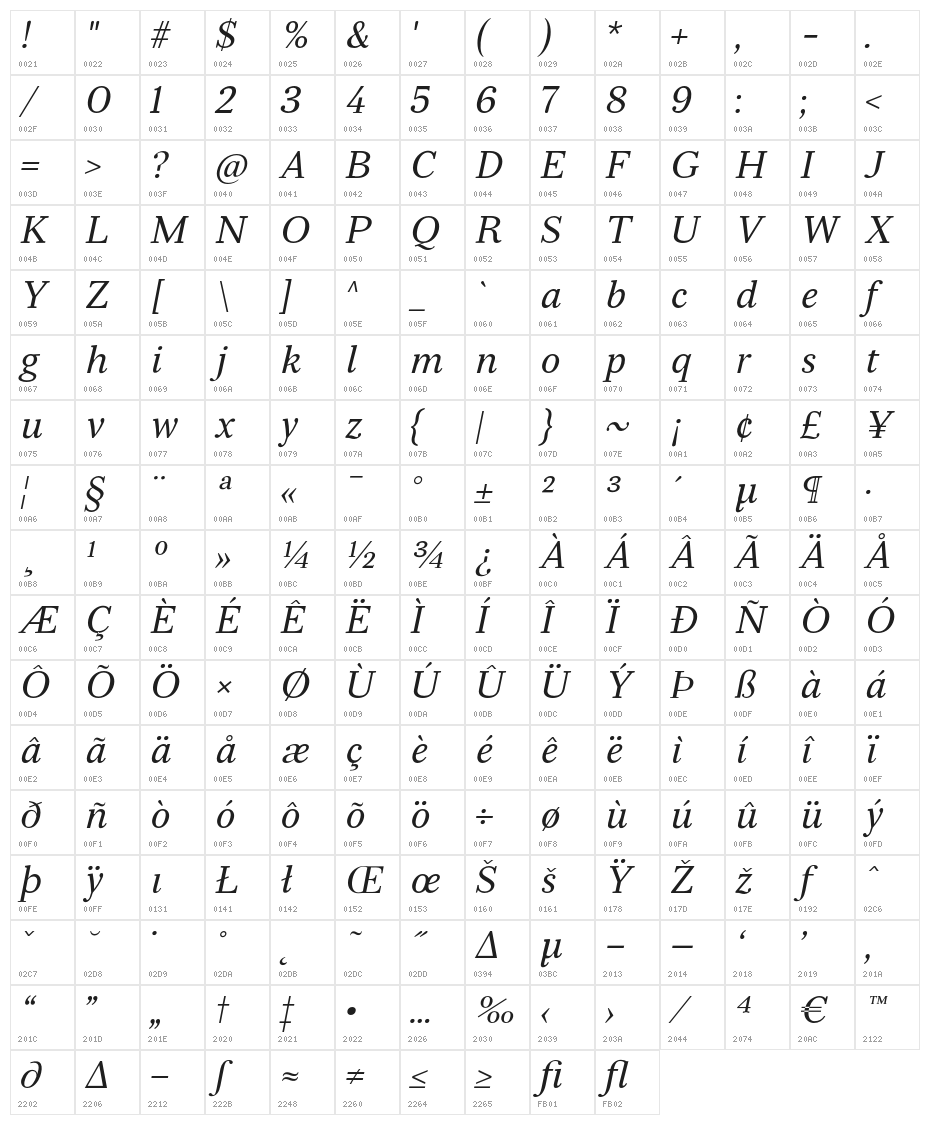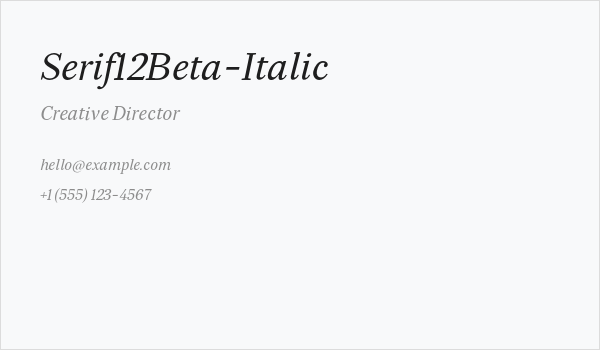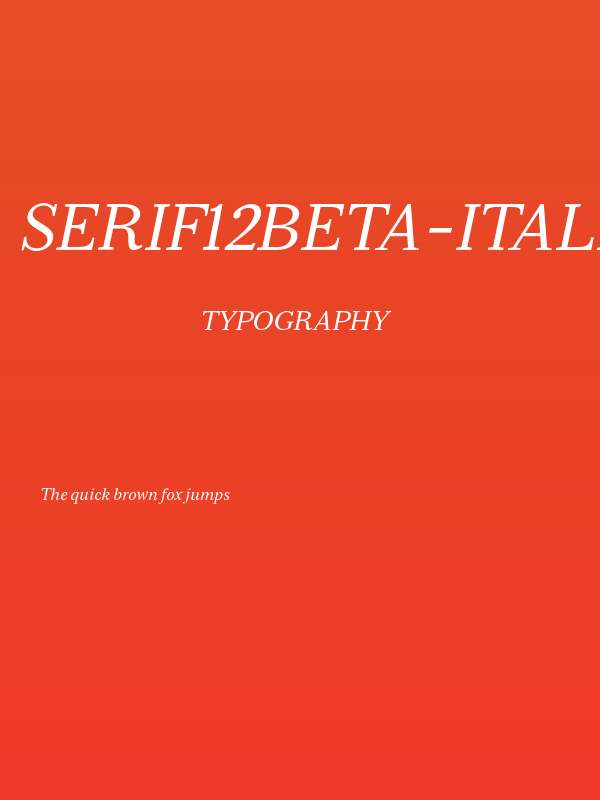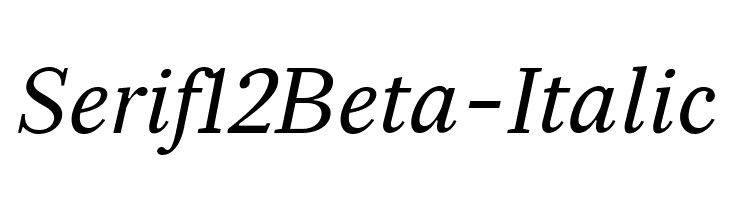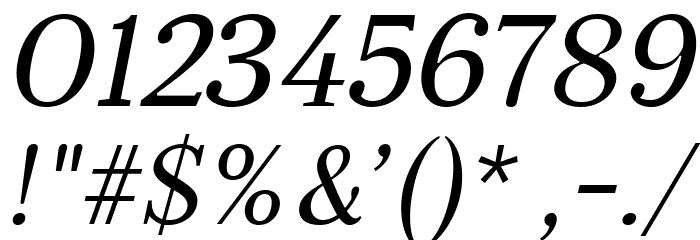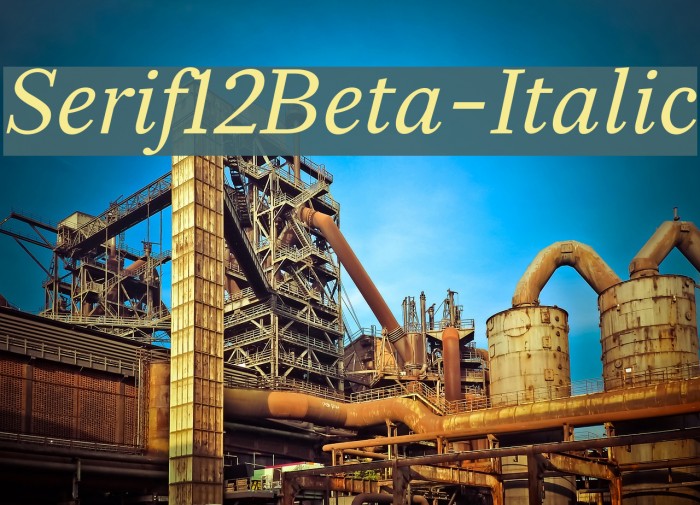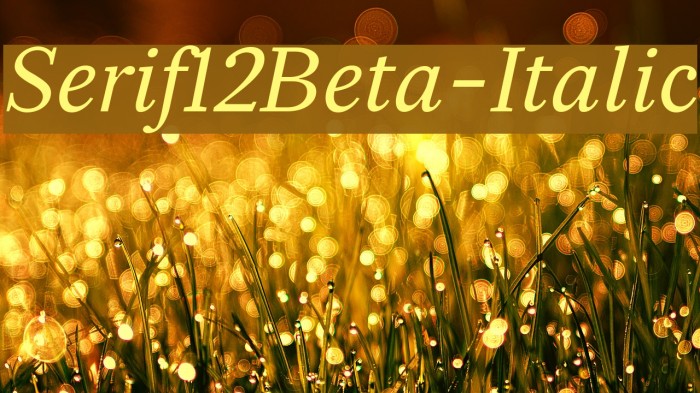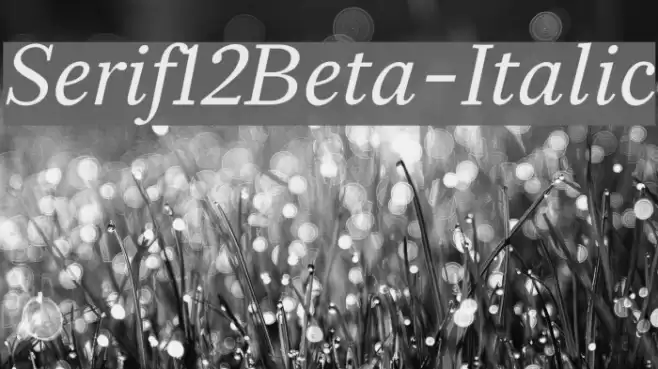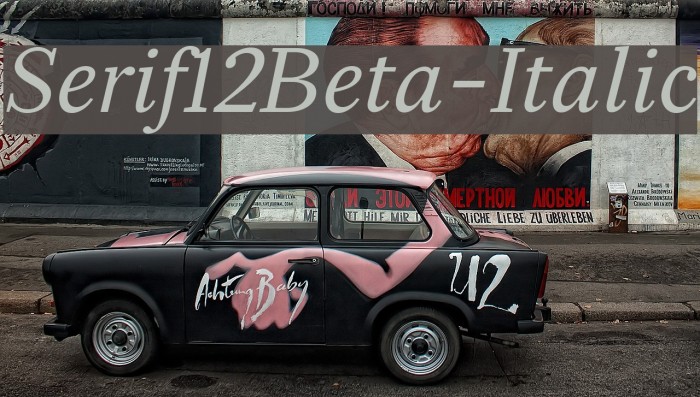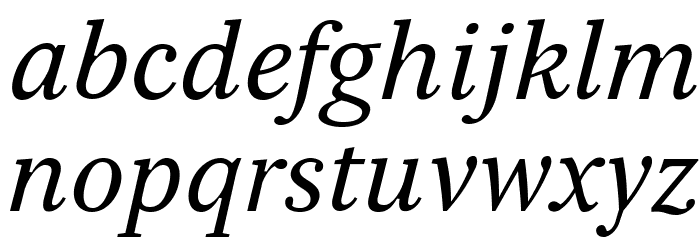
Serif12Beta-Italic Font
Serif12Beta-Italic Description
This elegant serif font features a classic italic style with smooth, flowing lines and a refined appearance. The characters are well-proportioned, with a slight slant that adds a sense of motion and sophistication. The uppercase letters are tall and stately, while the lowercase letters maintain a consistent rhythm, enhancing readability. The numerals are clear and distinct, complementing the overall design. Special characters are thoughtfully integrated, maintaining the font's cohesive aesthetic. This font exudes a timeless quality, making it suitable for a variety of formal and professional applications.
| Overall Style | Classic |
| Use Case | Headlines, Body text, Logos |
| Proposed Projects | Ideal for book covers, formal invitations, branding materials, and editorial design. |